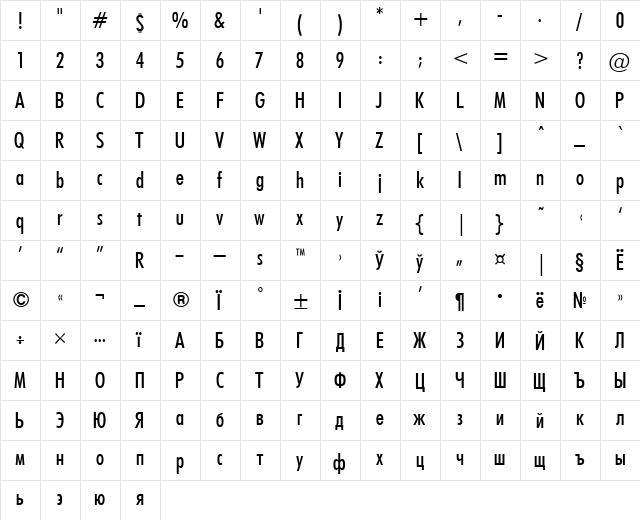
Futura Cond Cond
Design Context for Futura Cond Typeface
Futura Cond channels digital-age aesthetics through its sharp, structured letterforms — ideal for brands that want to signal innovation. The condensed width makes it efficient for tight spaces without sacrificing legibility.
Pro Tip: Try Futura Cond with generous letter-spacing in UI labels and navigation — the geometric forms benefit from room to breathe.